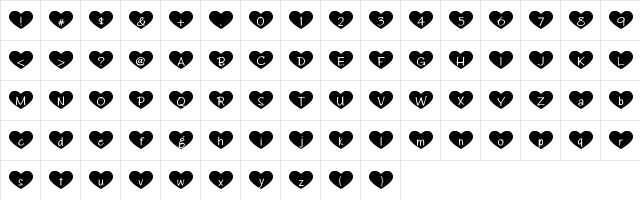
HeartAttack Font Preview
Design Context for HeartAttack Typeface
HeartAttack is a composed and adaptable typeface that performs quietly and consistently across a wide range of design contexts.